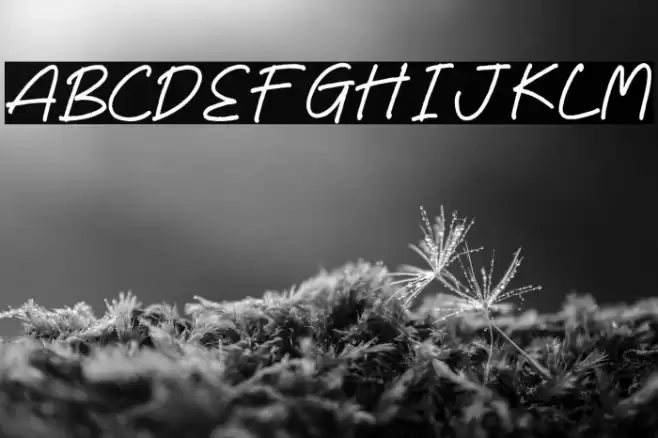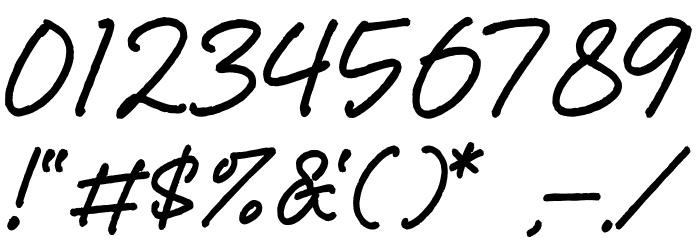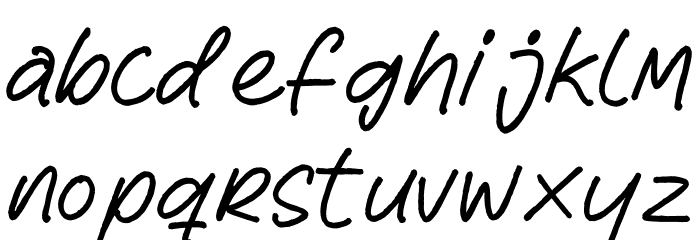
Reyhart Sejenack Font
Reyhart Sejenack Description
This font exudes a casual and approachable handwritten style, characterized by its fluid and slightly slanted letterforms. The strokes are smooth and consistent, giving it a natural and personal touch. The uppercase and lowercase letters maintain a harmonious balance, with a slight variation in size that adds to its charm. The numerals and special characters are crafted with the same attention to detail, ensuring readability and coherence across all elements. This font is perfect for projects that require a personal, informal, and friendly tone.
A casual handwritten font with smooth, fluid strokes and a personal touch from Uncategorized fonts.
- Font: Reyhart Sejenack
- Proposed Projects: Ideal for greeting cards, personal letters, informal invitations, and social media graphics.
- Overall Style: Casual, Friendly
- Use Case: Greeting cards, Personal letters, Informal invitations